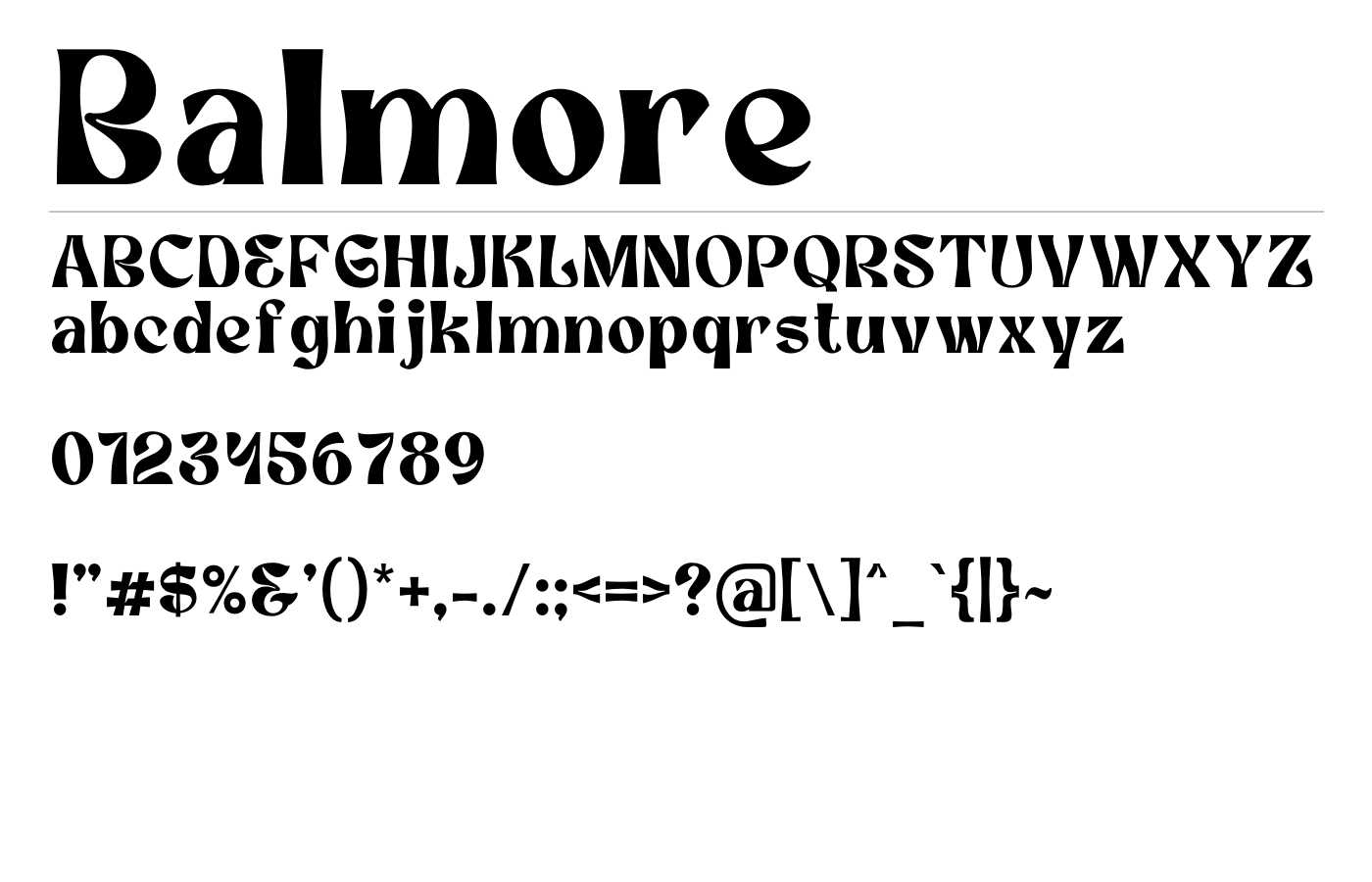
Balmore is a distinctive serif font with a bold, slightly condensed structure and medium contrast between thick and thin strokes, giving it a strong yet elegant presence. Its playful yet refined letterforms, featuring unique curves and artistic details, make it ideal for creative branding, headlines, and editorial designs that aim to capture attention with personality and style. This font works well in fashion, luxury, and vintage-inspired projects where a bold statement with a touch of sophistication is desired.
Balmore Font
About Balmore Font
| Font family | Balmore Font |
| Designer | Muhamad Yusron Billah |